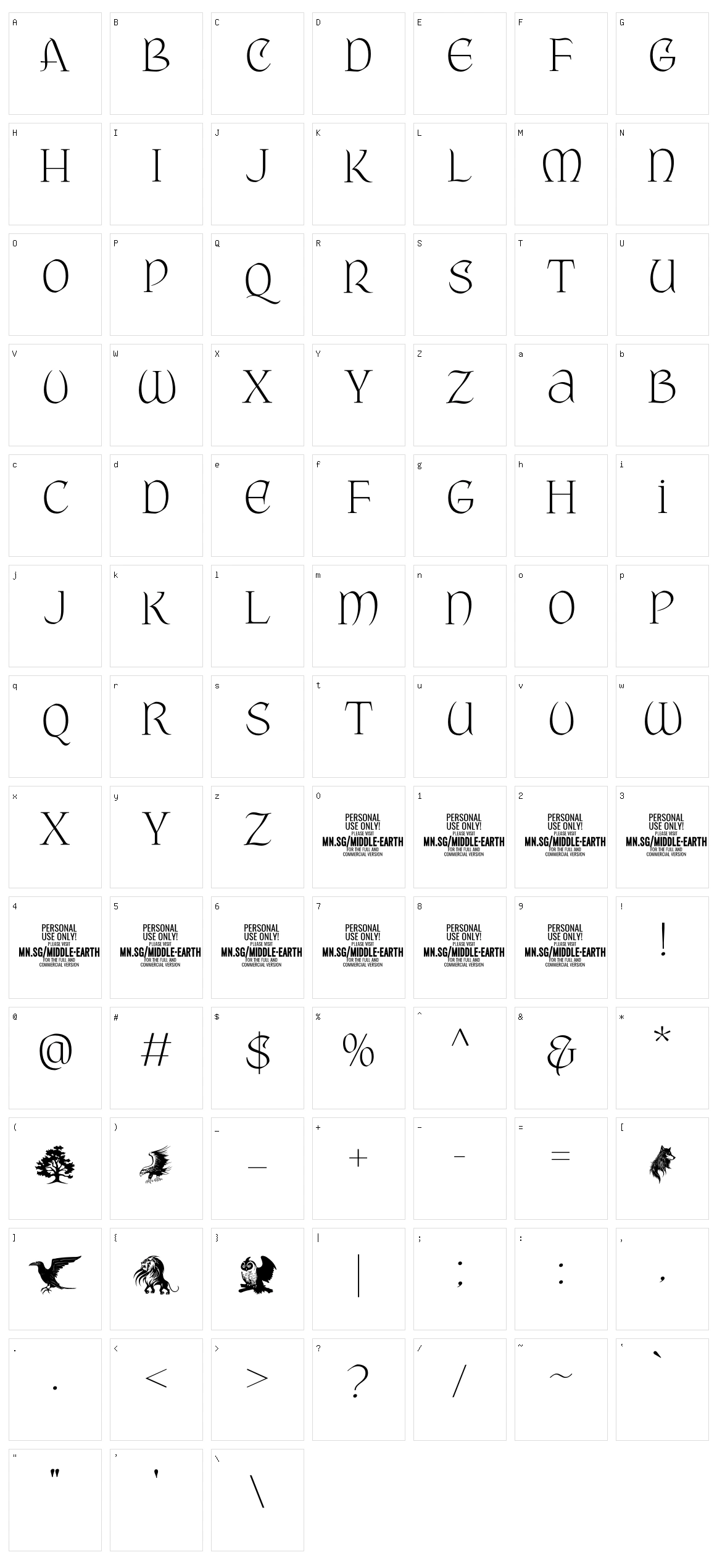
Middle Earth
Middle Earth is a Medieval calligraphy serif font.
With the historic charm of ancient manuscripts and the ethereal beauty of elven realms, Middle Earth typeface weaves tales of valor and legends.
Its calligraphic allure is accentuated by rounded contours, reminiscent of Tolkien's enchanted worlds.
The unusually large lowercase, almost circular in its form, seems to echo the undulating hills of the Shire, while its Irish-inspired design lends a timeless elegance.
Despite its delicate appearance, the typeface stands strong across all its weights—from the gossamer touch of 'Thin' to the commanding presence of 'Black.' Every character seems infused with a narrative, waiting to adorn pages with tales of yore.
Use parentheses characters ( ) { } [ ] to make symbols such as wolves, eagles or lions.
This family consists of a very wide range of weights: Thin, Light, Regular, Bold and Black
Each weight is also delivered in Italic, resulting in ten unique styles.
Also includes a variable font!
Only one font file, but the file contains multiple styles.
Use the sliders in Illustrator, Photoshop or InDesign to manually set any weight and slant.
This gives you not only the 16 predefined styles, but instead more than a thousand ways to customize the type to the exact look your project requires.
The font is built with advanced OpenType functionality and has a guaranteed top-notch quality, containing stylistic and contextual alternates, ligatures, and more features; all to give you full control and customizability. It has extensive lingual support, covering all Latin-based languages, from Northern Europe to South Africa, from America to South-East Asia. It contains all characters and symbols you'll ever need, including all punctuation and numbers.
Mans Greback's perfection shines through in Middle Earth. His dedication to crafting unique and powerful typefaces offers designers a piece of the past, molded for the present.